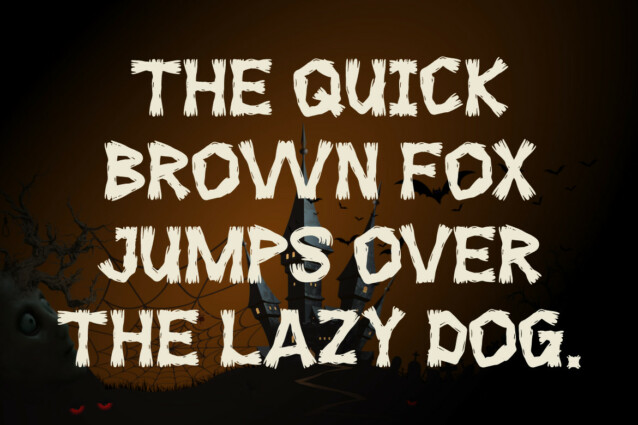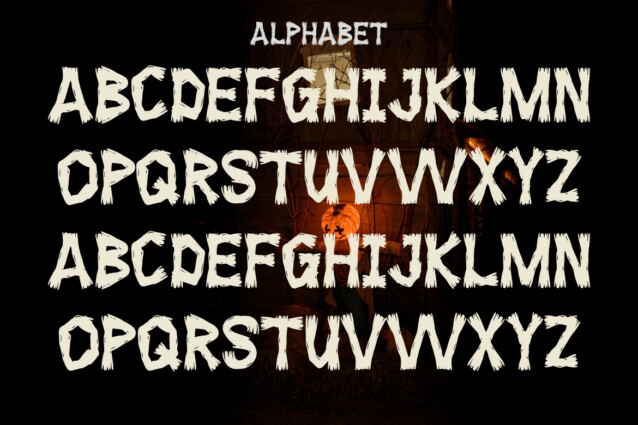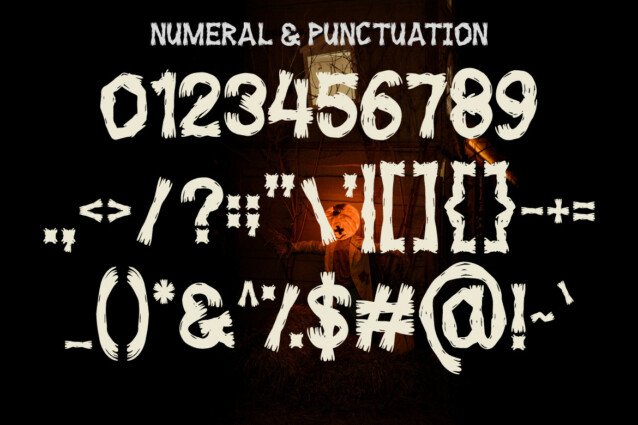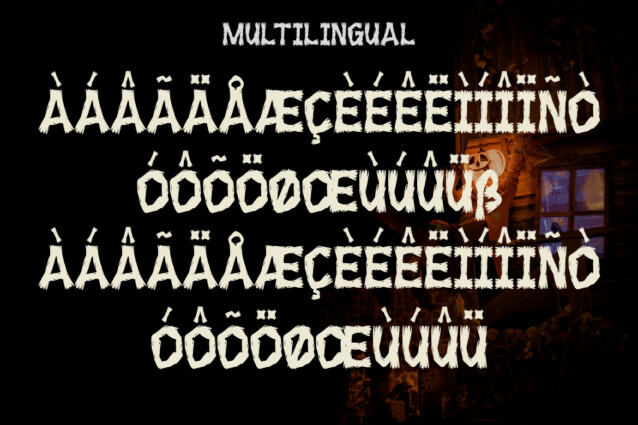
Lily Chloe Display Font
Lily Chloe Display Font is a type of font specifically designed to create a spooky, mysterious atmosphere and depict the spirit of Halloween celebrations. This font can be used in various Halloween-related media, such as party invitations, posters, merchandise designs, greeting cards, warning signs, or within website designs with Halloween themes.